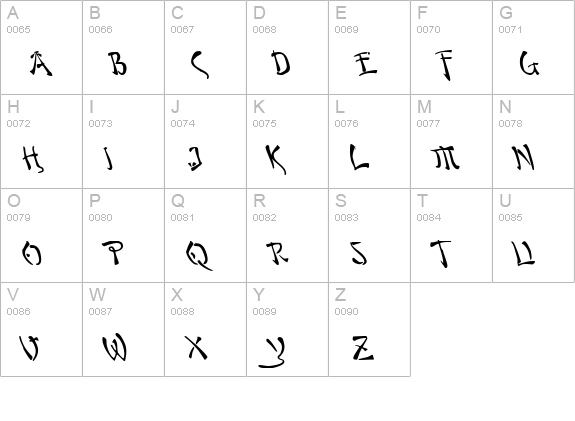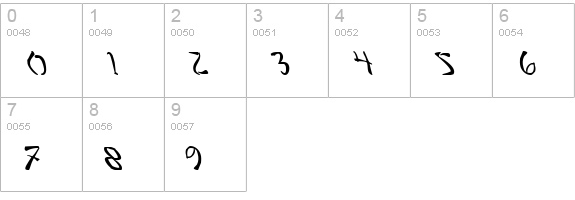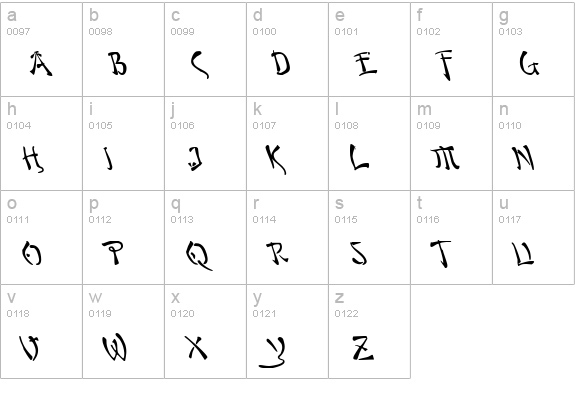
Bushido Leftalic font is a stunning display typeface that exudes elegance and sophistication. With its sleek and modern design, this font is perfect for creating eye-catching headlines, posters, and branding materials. The unique italic style of Bushido adds a touch of flair and drama to any project, making it stand out from the crowd. And the best part? Bushido Leftalic font is completely free to download at FontsMarket.com! Whether you're a professional designer or just looking to add a touch of style to your personal projects, this font is a must-have in your collection. Don't miss out on the opportunity to elevate your designs with the exquisite beauty of Bushido Leftalic font. Download it now and let your creativity shine!